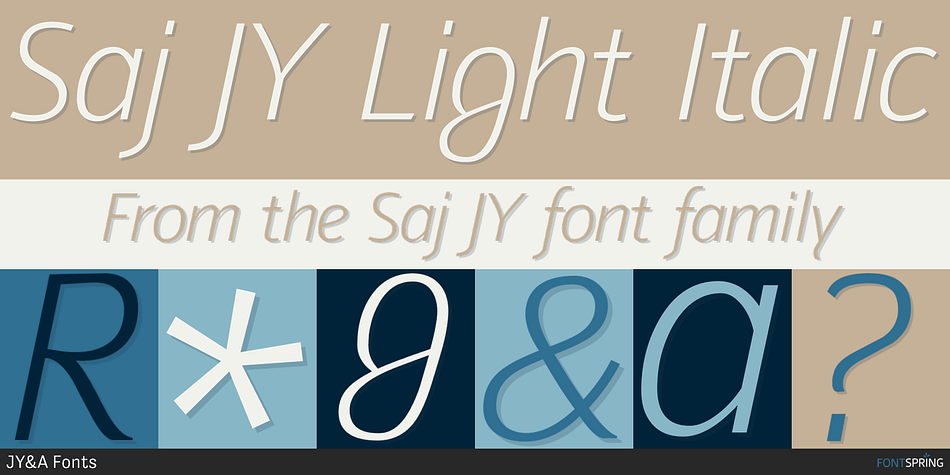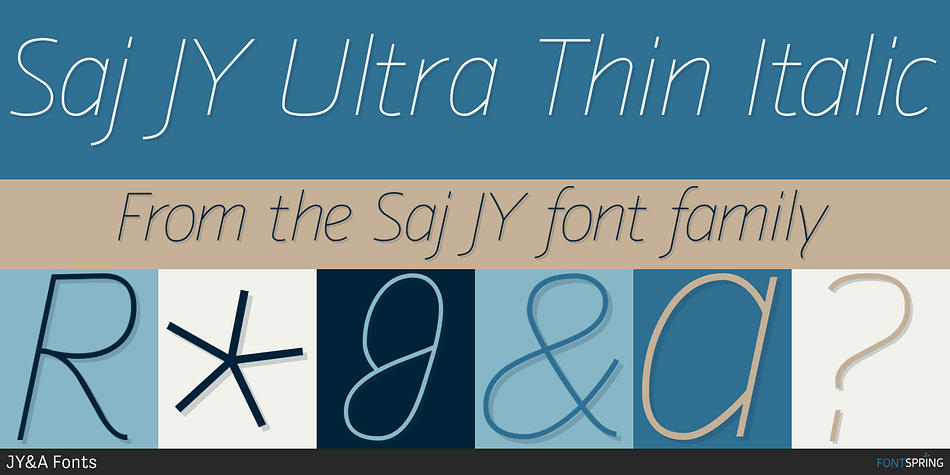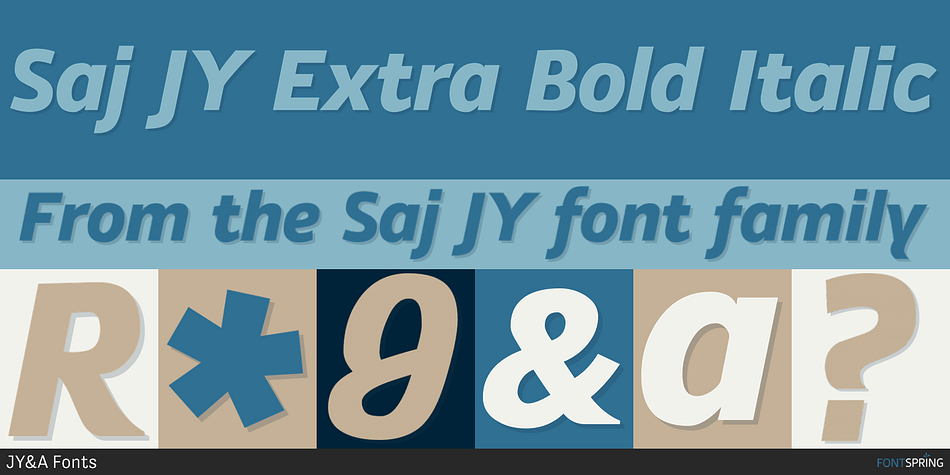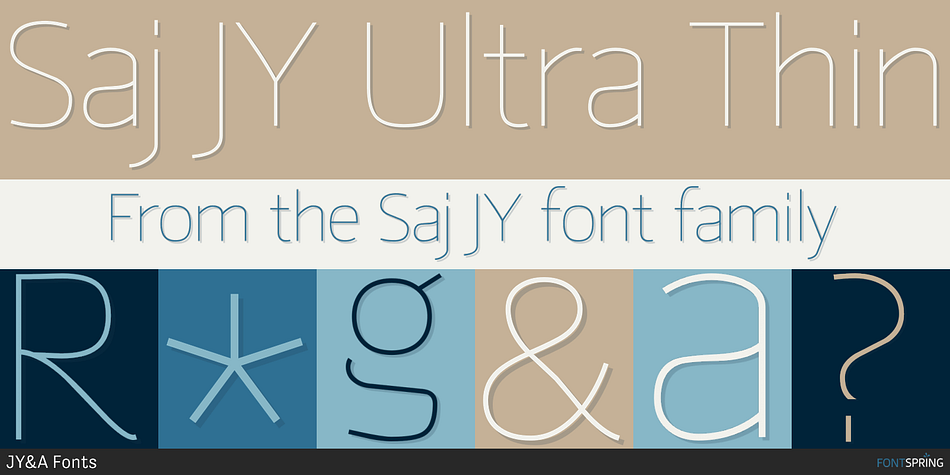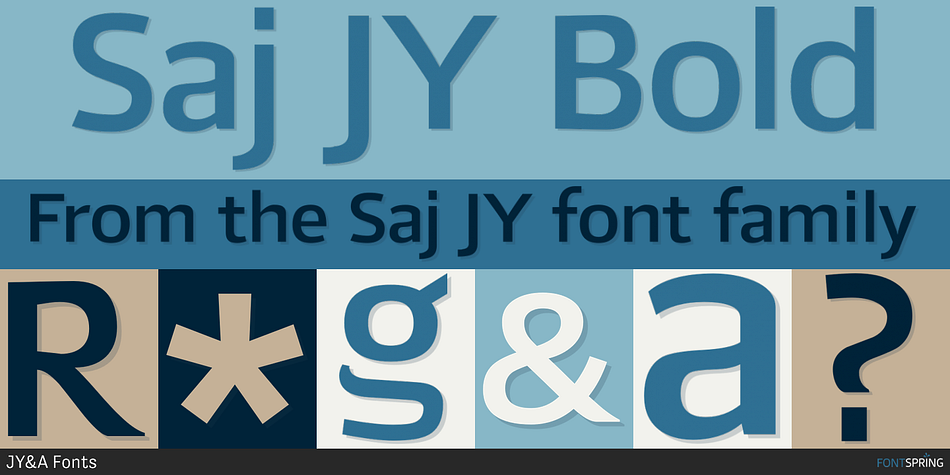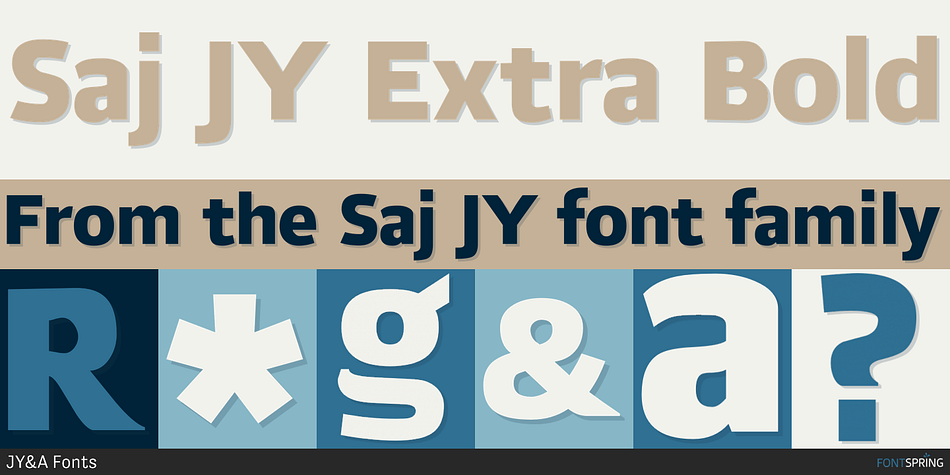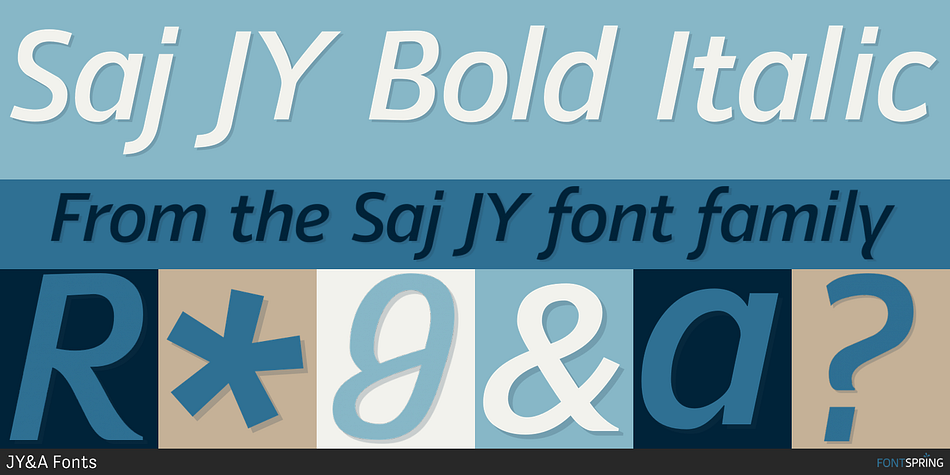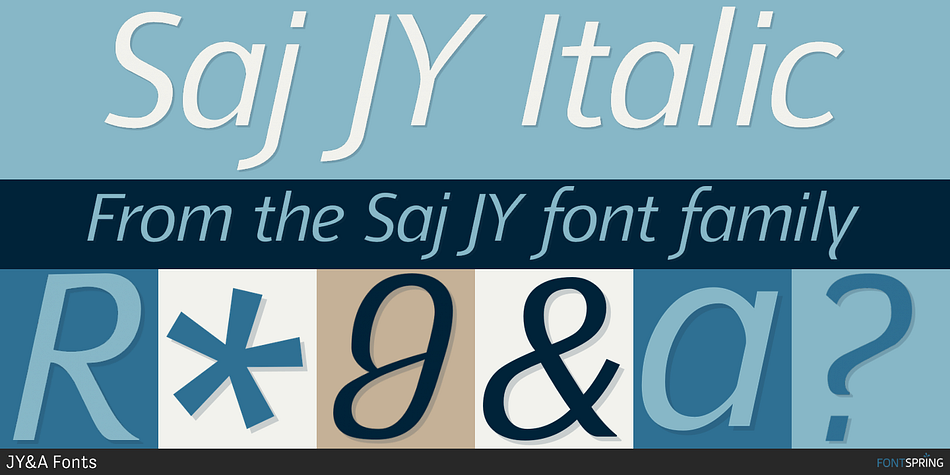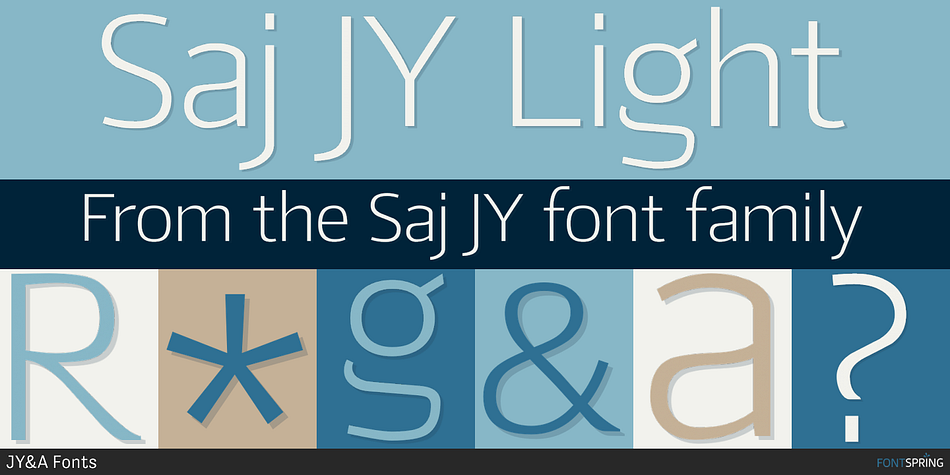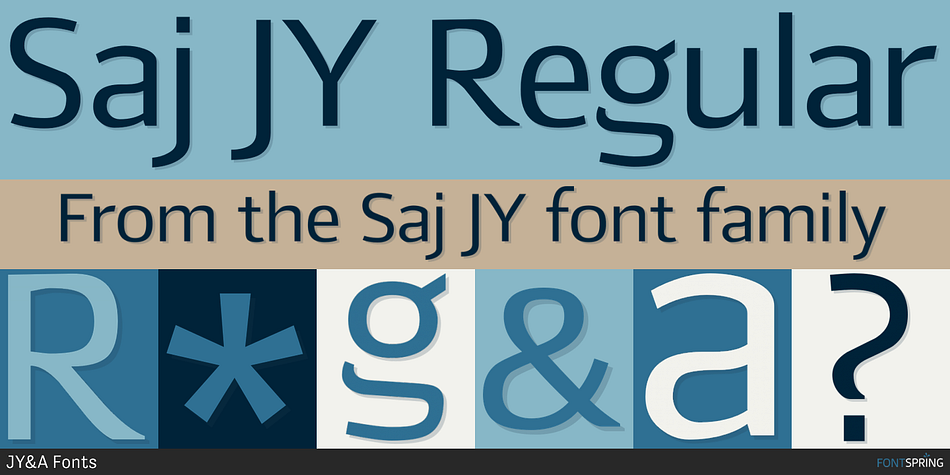
Designed by Jure Stojan, Saj JY is a sans serif font family. This typeface has ten styles and was published by JY&A Fonts.
Designed by Jure Stojan, JY Saj is a typeface family that successfully balances the artistic and the conventional. With 10 weights (Ultra Thin to Extra Bold, with italic complements), it works at a variety of sizes, in print and on screen.
There are both oldstyle and lining figures, the rupee symbol is supported, and roughly 3,500 kerning pairs were added per font.